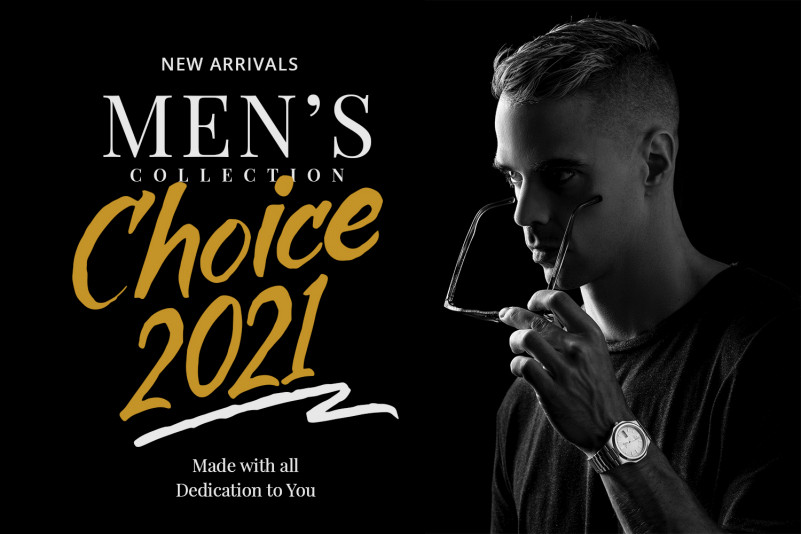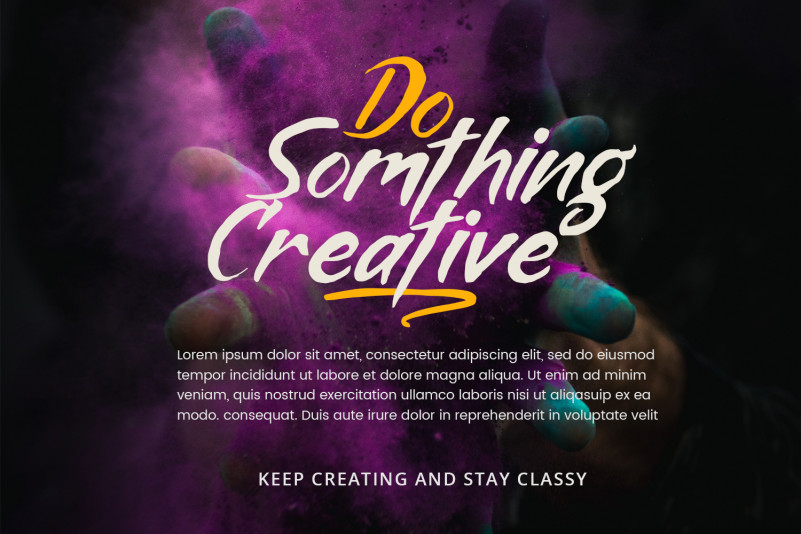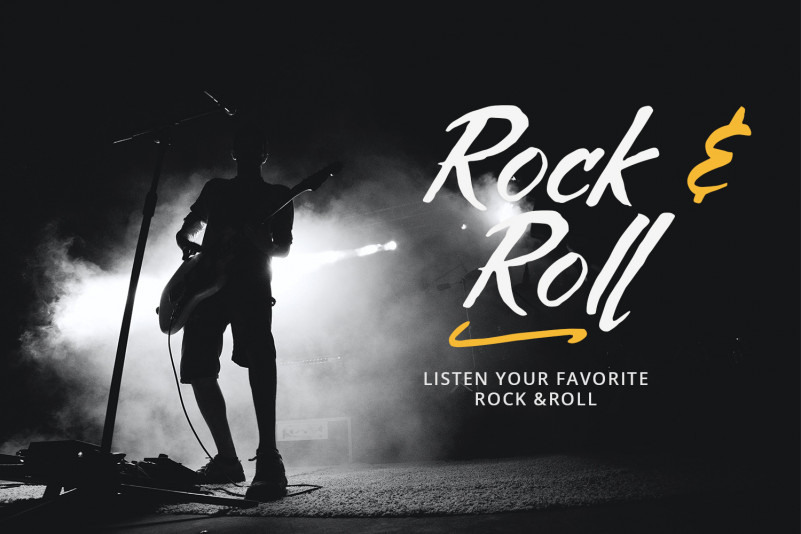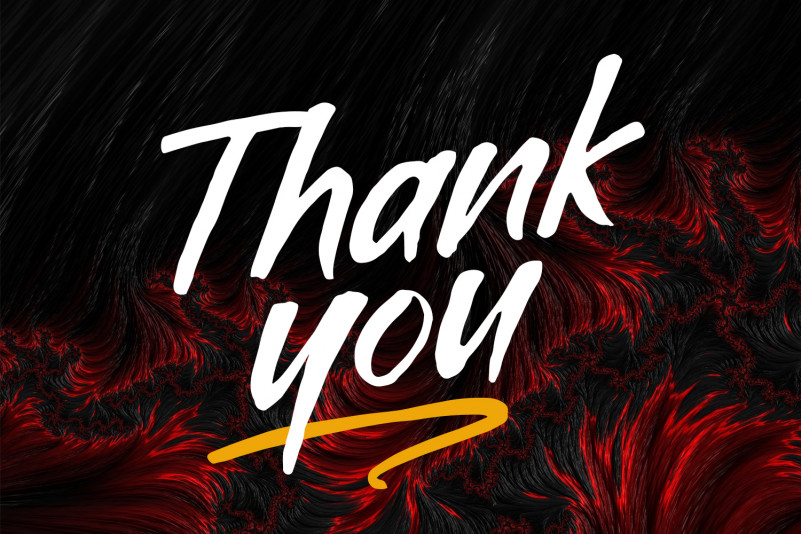
Crazy Xeon Font is stylish graffiti brushed display font, inspired by street art. No matter the topic, this font will be an incredibly asset to your fonts’ library, as it has the potential to elevate any creation.